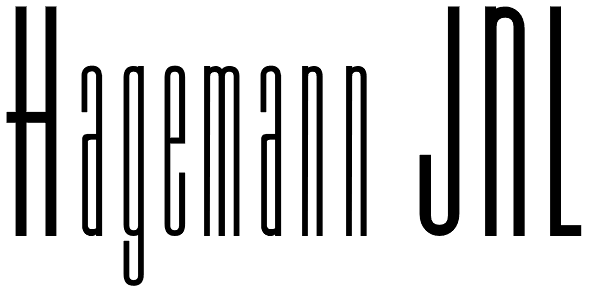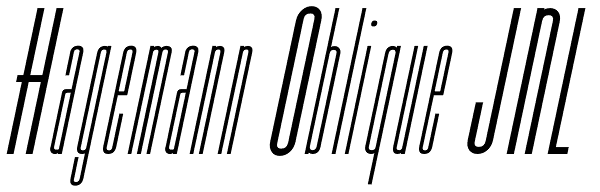
Hagemann JNL
One of the most enduring type styles of the Art Deco era is Huxley Vertical. Its clean lines and stylish appeal have transcended changing times and tastes. Many typefaces have been inspired by the original, including the model used to create this...
Hagemann JNL
Hagemann Oblique JNL